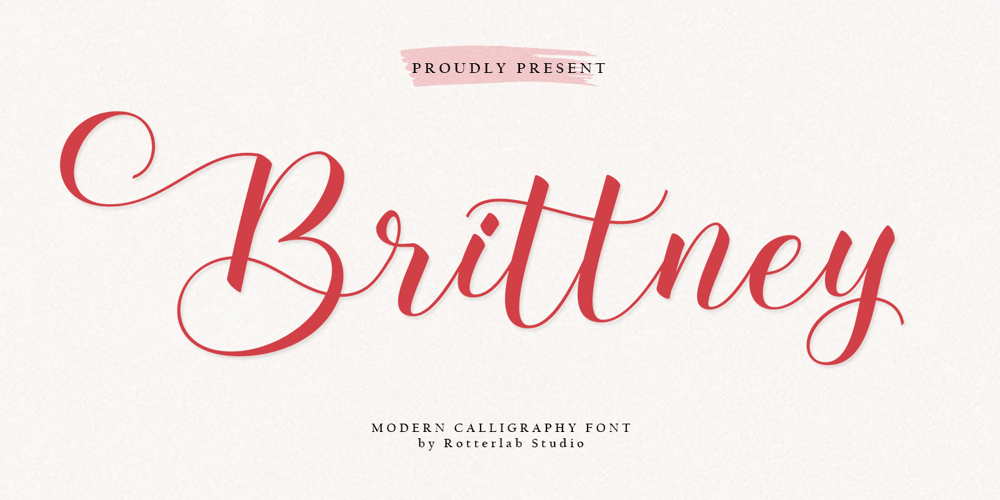
Brittney Script Font Family was designed by Sidiq Fahmi and published by Rotterlab Studio. Brittney Script contains 1 styles and family package options. Brittney Script is a new modern script font with an irregular base line. Trendy and feminine style. Brittney Script looks beautiful in wedding invitations, thank you cards, quotes, greeting cards, logos, business cards, and more. Perfect for use in ink or watercolors. Includes initial letters and terminals, alternatives and support for many languages.To activate the OpenType Stylistic alternative, you need a program that supports OpenType features such as Adobe Illustrator CS, Adobe Indesign & CorelDraw X6-X7, Microsoft Word 2010 or newer versions. There are additional ways to access alternatives / swash, using Character Map (Windows), Nexus Fonts (Windows), Font Books (Mac) or software programs such as PopChar (for Windows and Mac).How to access all alternative characters:https: //www.youtube.com/watch? v = Go9vacoYmBwhttps: //www.youtube.com/watch? v = XzwjMkbB-wQhttps: //www.yo …